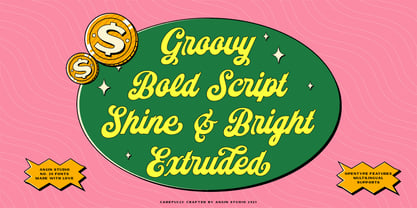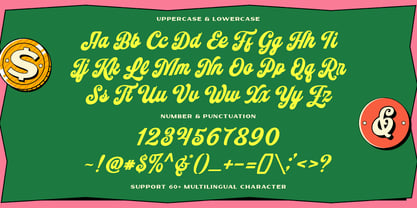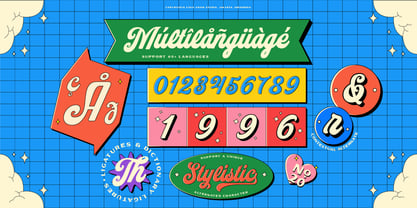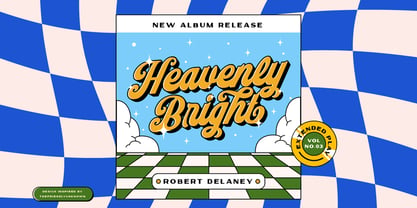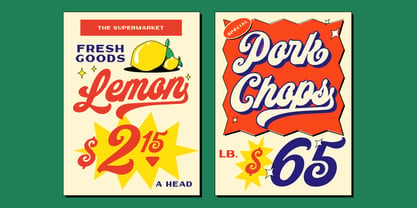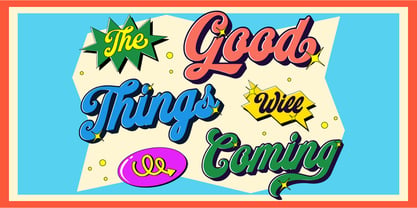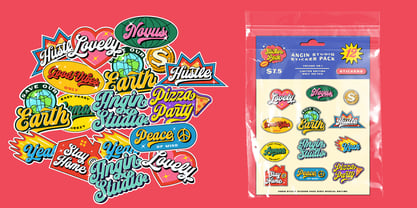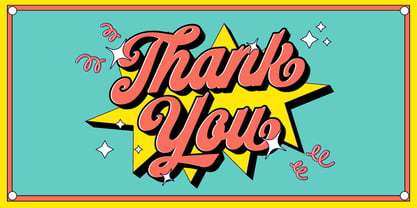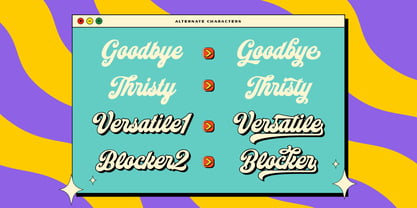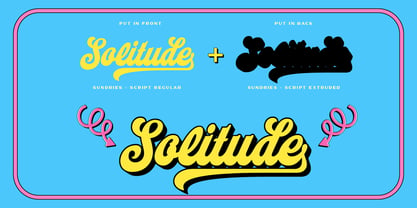
Sundries
por Angin Studio
La familia tipográfica Sundries fue diseñada por Ahmad Aswin, David Novrian y publicada por Angin Studio. Sundries contiene 2 estilos y opciones de paquete familiar. Más información sobre esta familia
Sundries Bold Script created from our explorations which inspired by 90’s retro style and pop culture visual design we saw on old comics, cartoon and poster. The strong bold character with a nice flow always make us feel comfortable and raising our mood to the better. Now we create this lovely font to share our feeling about this type to you. Sundries Bold Script can help you with many of your project like Logo Design, Poster, Sticker, Album Cover, T-Shirt, and many more. Comes with Extruded, Perfectly paired Sans Serif, and many features which can make the type work even better. Features Ligatures Stylistic Alternate Swash Multilingual Language We hope you enjoy this fonts as much as we create it.
Diseñadores: Ahmad Aswin, David Novrian
Fundición: Angin Studio